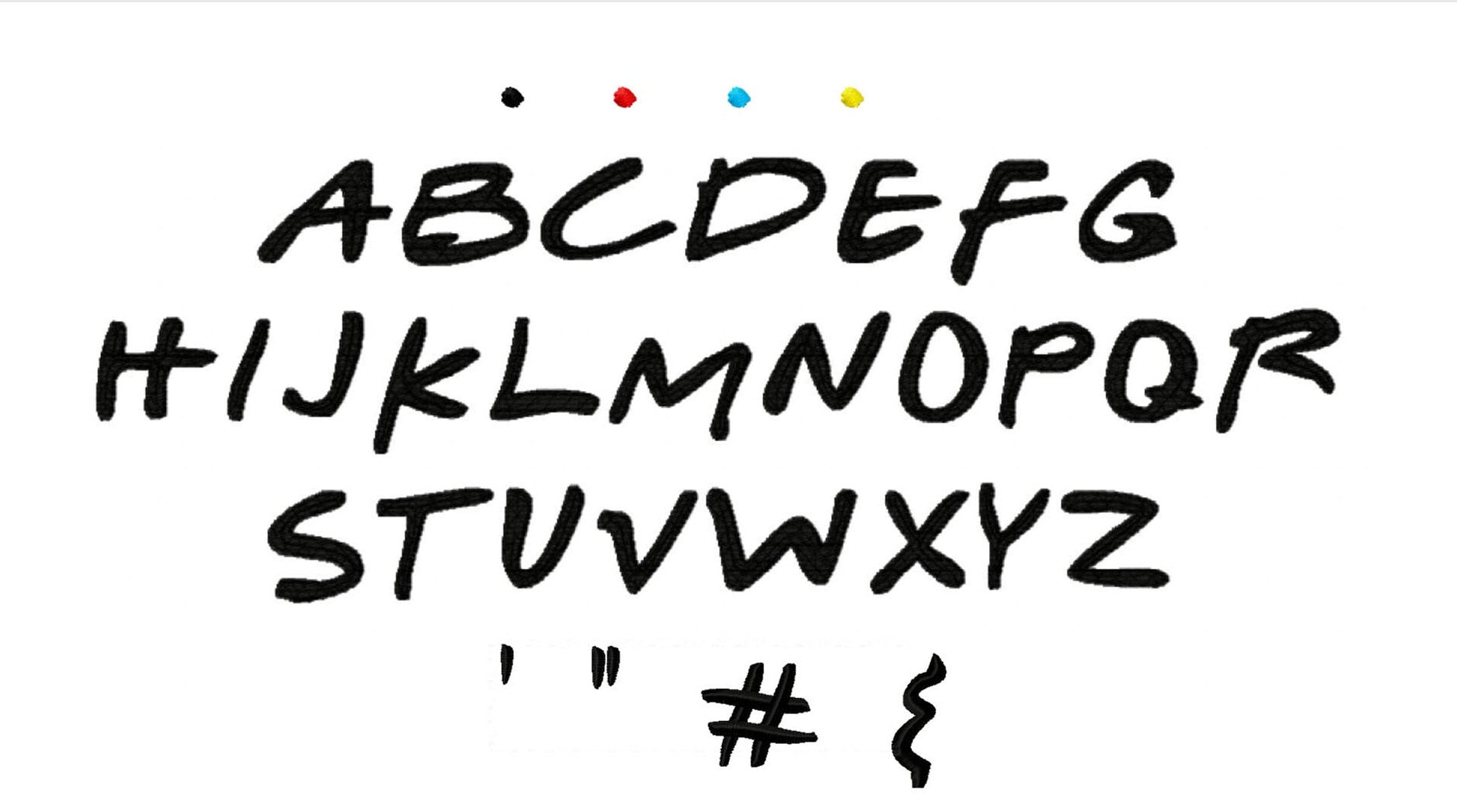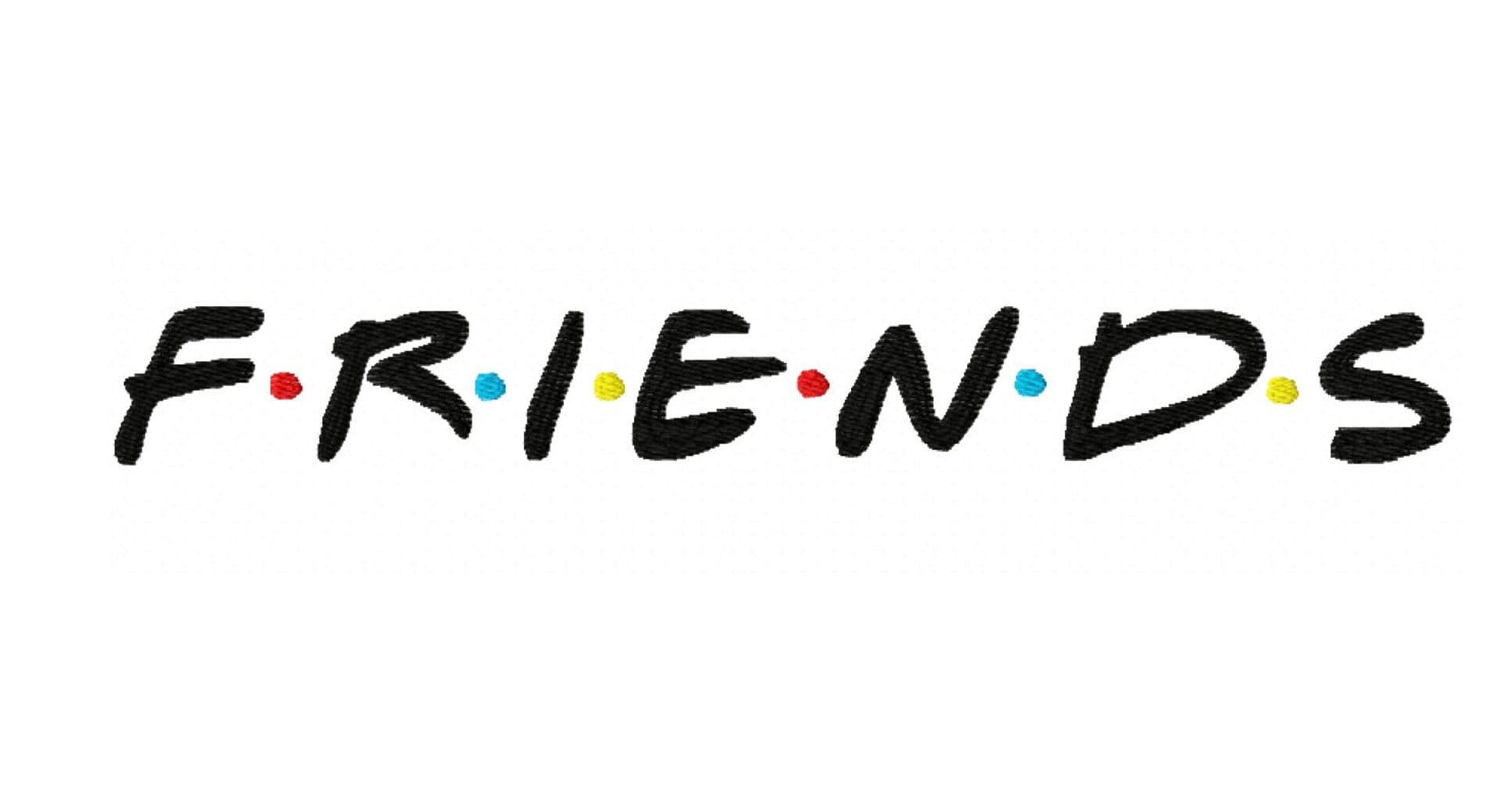
Friends Monogram Font A-Z 1inch Machine Embroidery Font Digital Download | Lovesome Embroidery
This listing features a machine embroidery font set which includes embroidery files of 26 uppercase letters and a few extra in 1inch size. (For the whole set, pls see the listing images.)